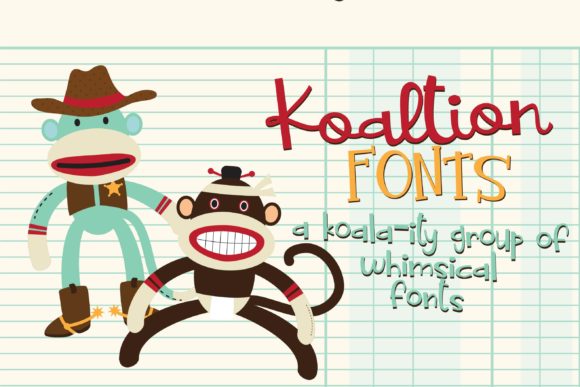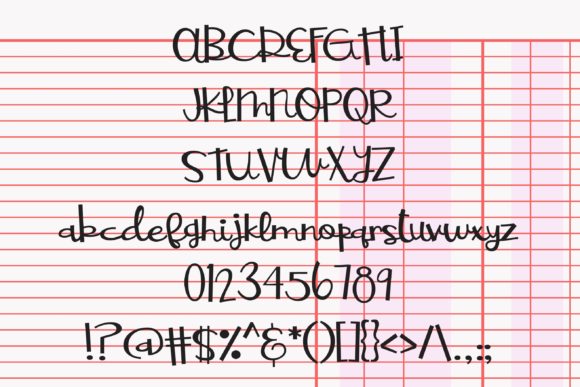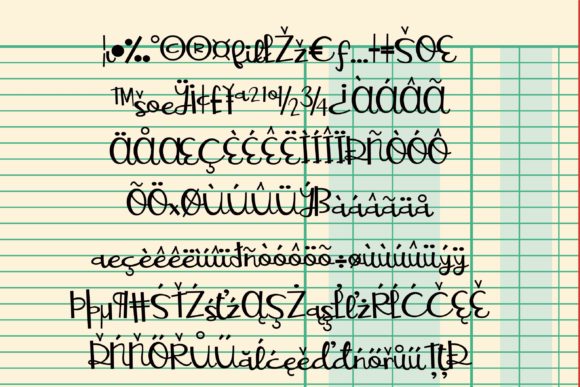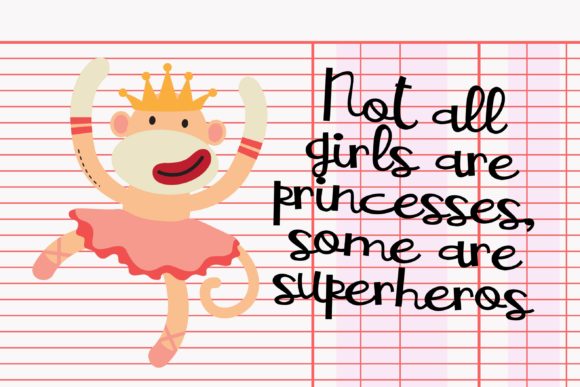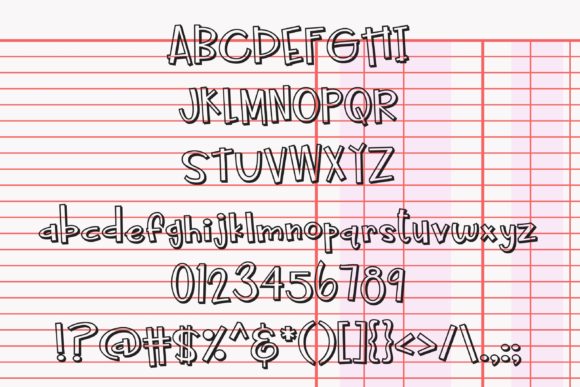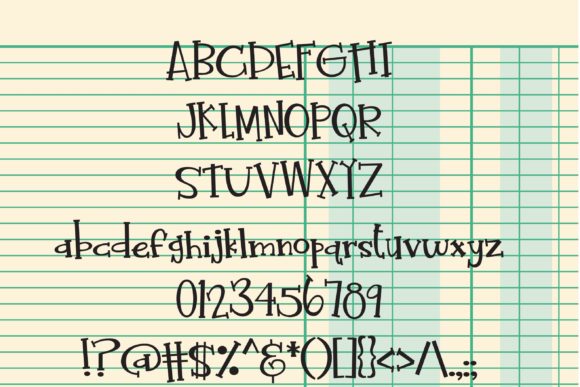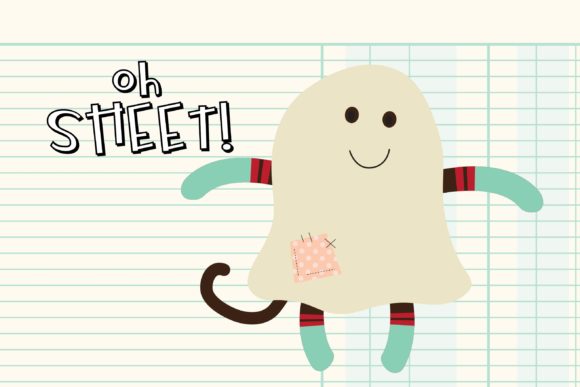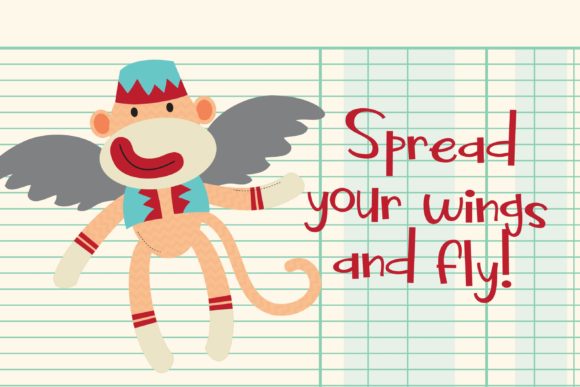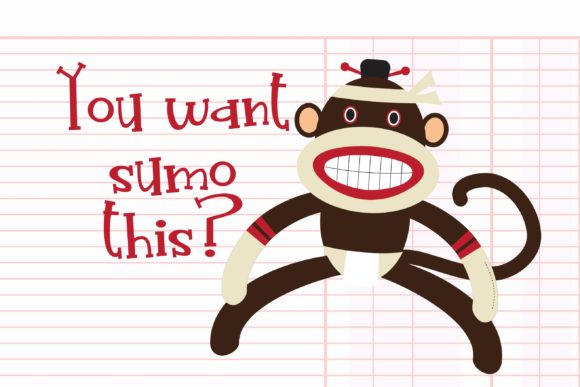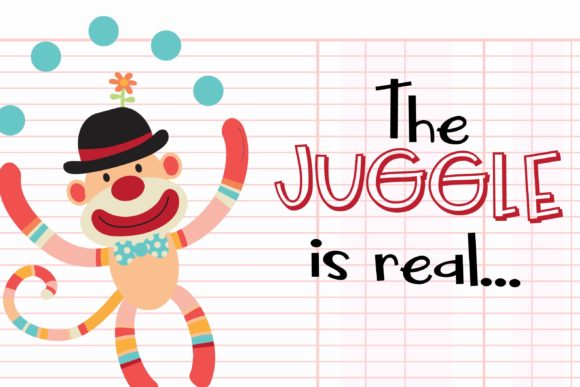
Koalition Family Font
About Koalition Family Font
Koalition is a whimsical and dynamic script family featuring quirky fonts. They will take any DIY project to the highest level.